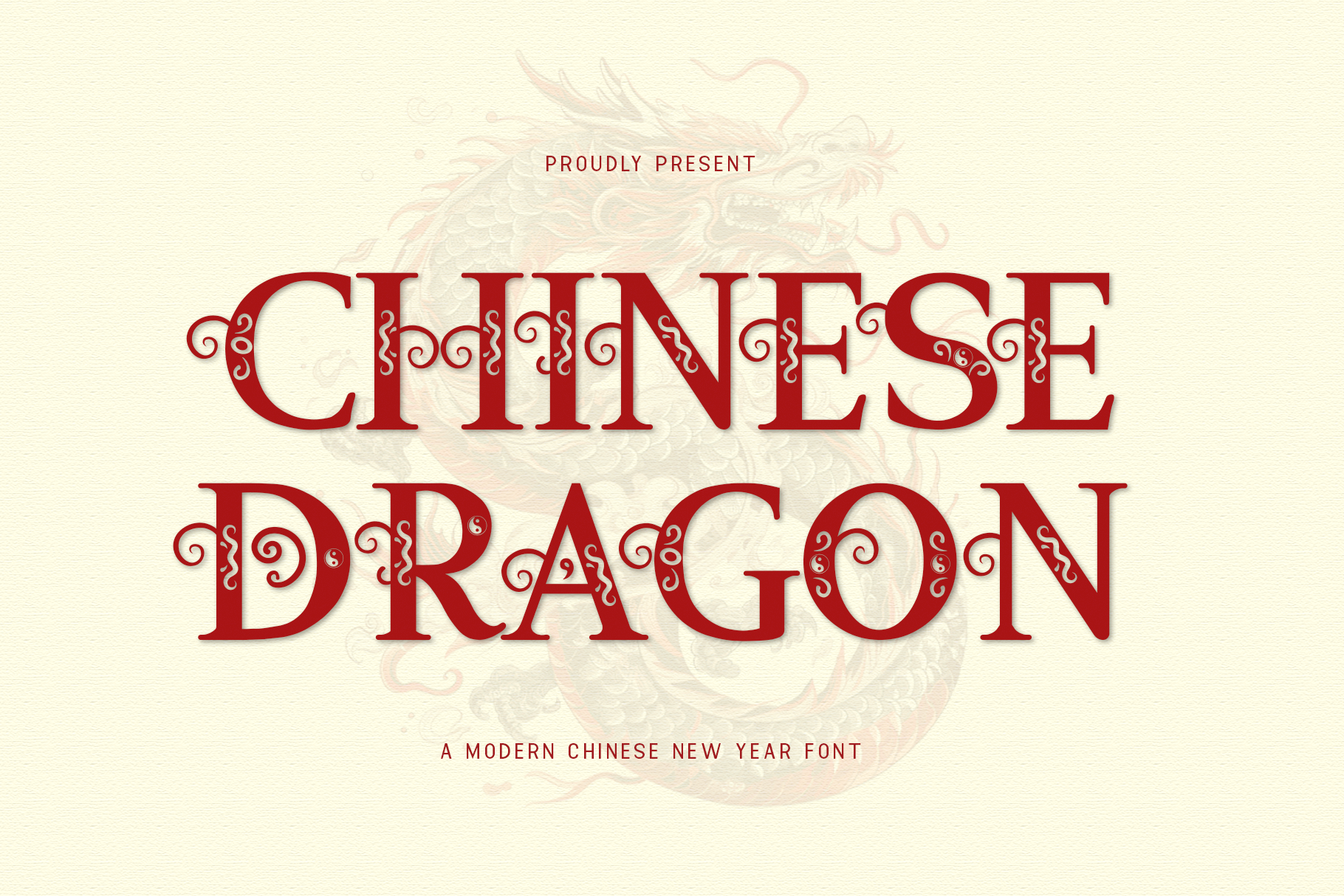
Chinese Dragon - Modern Chinese Font
Chinese Dragon - A Modern Chinese New Year Font
Unleash the power and grace of the Chinese Dragon with this unique, modern font designed specifically for Chinese New Year celebrations. Chinese Dragon combines traditional Chinese elements with a contemporary twist, bringing a fresh and bold energy to your designs.
Perfect for festive invitations, greeting cards, event posters, and branding materials, this font captures the strength and majesty of the iconic Chinese dragon while maintaining a sleek, modern aesthetic. The characters feature strong lines, dynamic shapes, and intricate details, giving your design a distinctive and striking look.
Whether you're designing for the Lunar New Year, creating a vibrant logo, or celebrating cultural heritage, Chinese Dragon brings a sense of prosperity and excitement to every project. With multilingual support and a full character set, this font offers versatility for global creative needs.